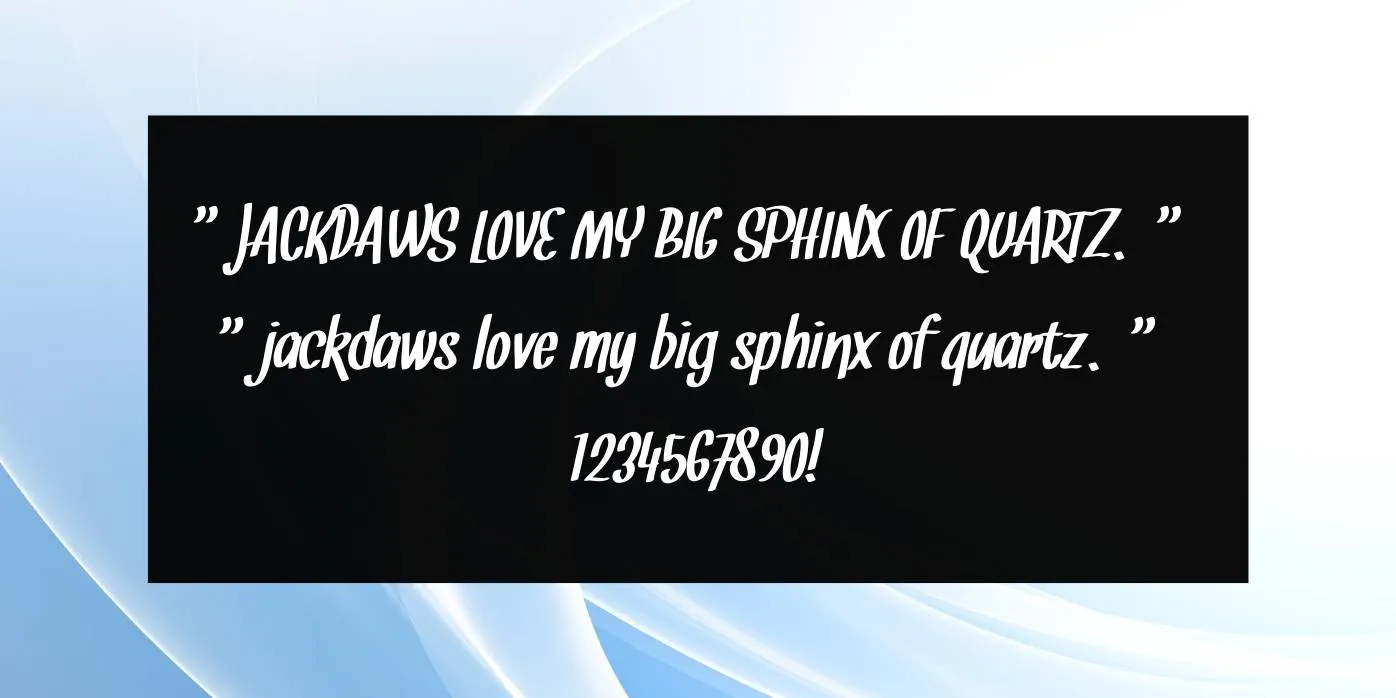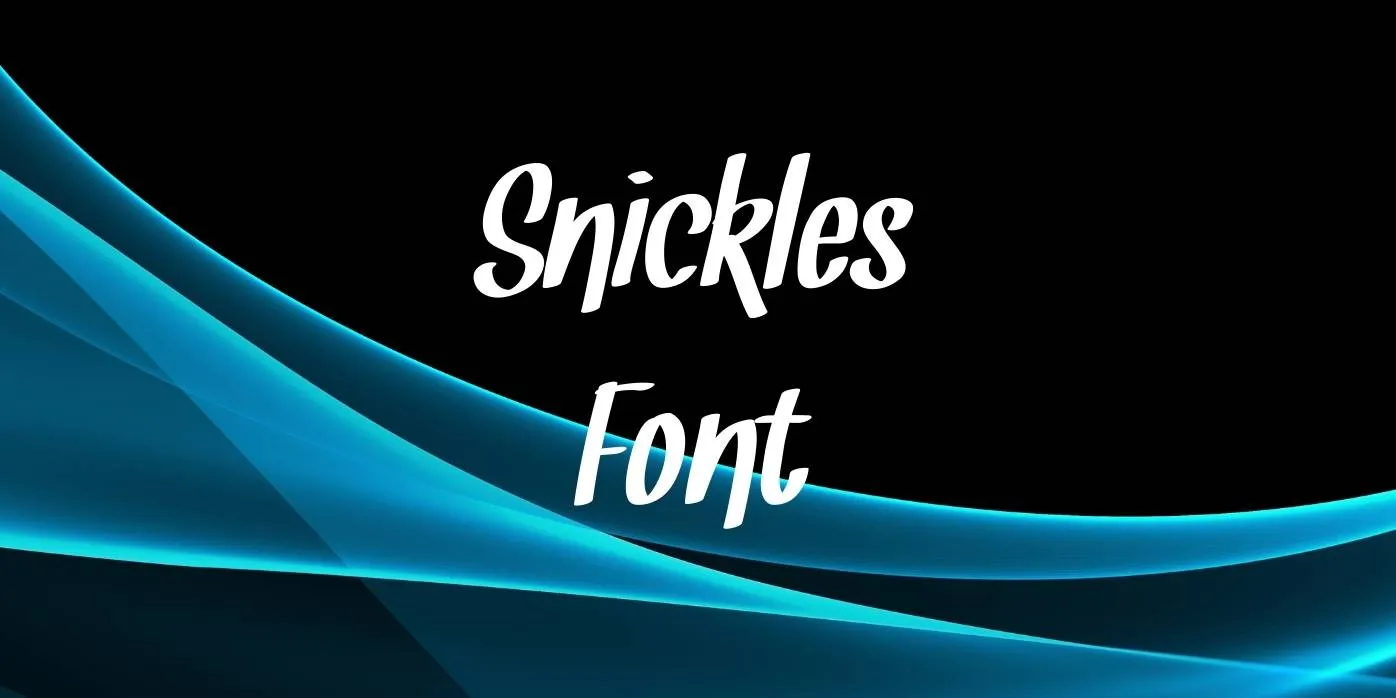
Snickles Font
Snickles Font is a script font created in 2006 by Gem Fonts. The name Snickles is a combination of the words “snake” and “nicks”. This font glyph has a very unique and stylish look. It is perfect for headlines, branding, and other creative uses.
The font was created with the idea of creating a more naturalistic and flowing script font. The result is a font that has a very organic feel, while still maintaining a clean and stylish appearance. This font has a wide range of uses, from formal to informal settings. It is a great choice for any project that needs a touch of elegance and refinement.
The Font family includes 4 different weights: Regular, Bold, Italic, and Bold Italic. Each weight includes a full set of upper and lower case letters, as well as numbers, punctuation, and international characters. However, if you want to pair the typeface with some really cool font then try to mesmerize font for your design project.